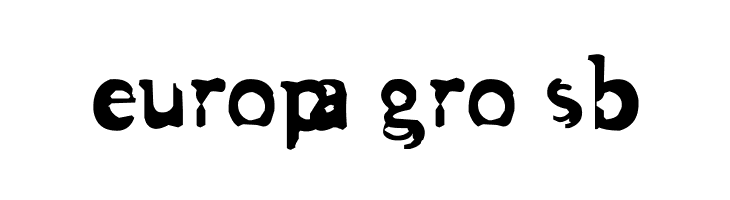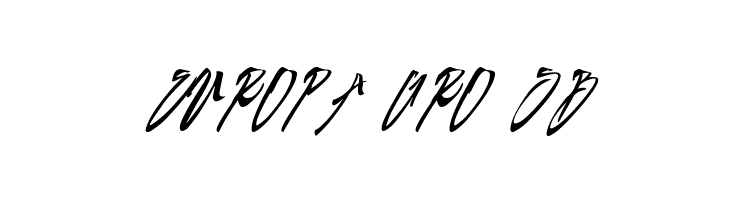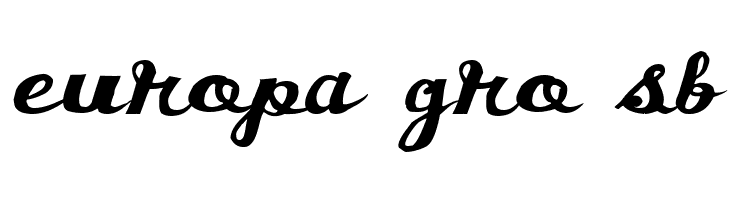
• ASIAN INFLUENCE
A bold, fluid script font with dramatic, calligraphic strokes.
• Asman
• Asphalts Brush
A bold, expressive brush-style font with dynamic, handcrafted strokes.
• Asphalts Display
A bold, brush-style font with dynamic, hand-painted strokes.
• Asrafel
A bold, Gothic-style font with sharp serifs and dramatic flair.
• Asset
A bold, high-contrast serif font with dramatic strokes and pronounced serifs.
• AssignmentPay-Font Regular
A decorative font made entirely of star-shaped patterns forming each character.
• Asswipe
• Astakhov Access Degree A
A bold, playful font with rounded, bubbly characters.
• Astakhov Access Degree A Serif
A bold, playful font with thick, rounded strokes and a whimsical style.